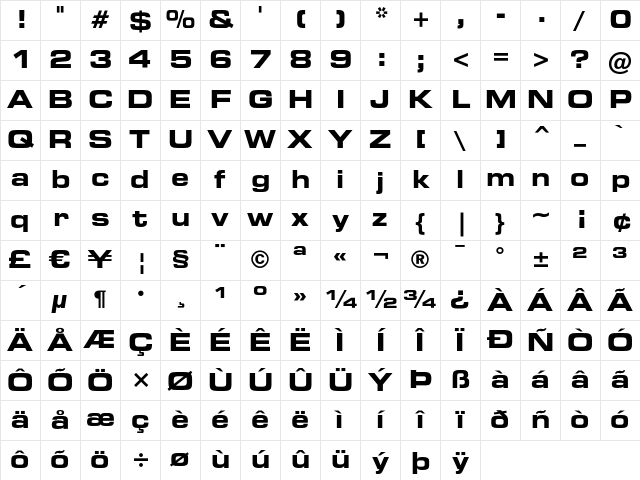
Square 721 Bold Extended Free Font
Square 721 Bold Extended
Style: Bold Extended
Square 721 Family
Square 721 Bold Extended
Complete Square 721 Bold Extended glyph index. Displaying only characters natively supported by Square 721 Bold Extended font.
Design Context for Square 721
Square 721 is a composed and adaptable typeface that performs quietly and consistently across a wide range of design contexts. Its bold stroke weight gives it real presence on the page.